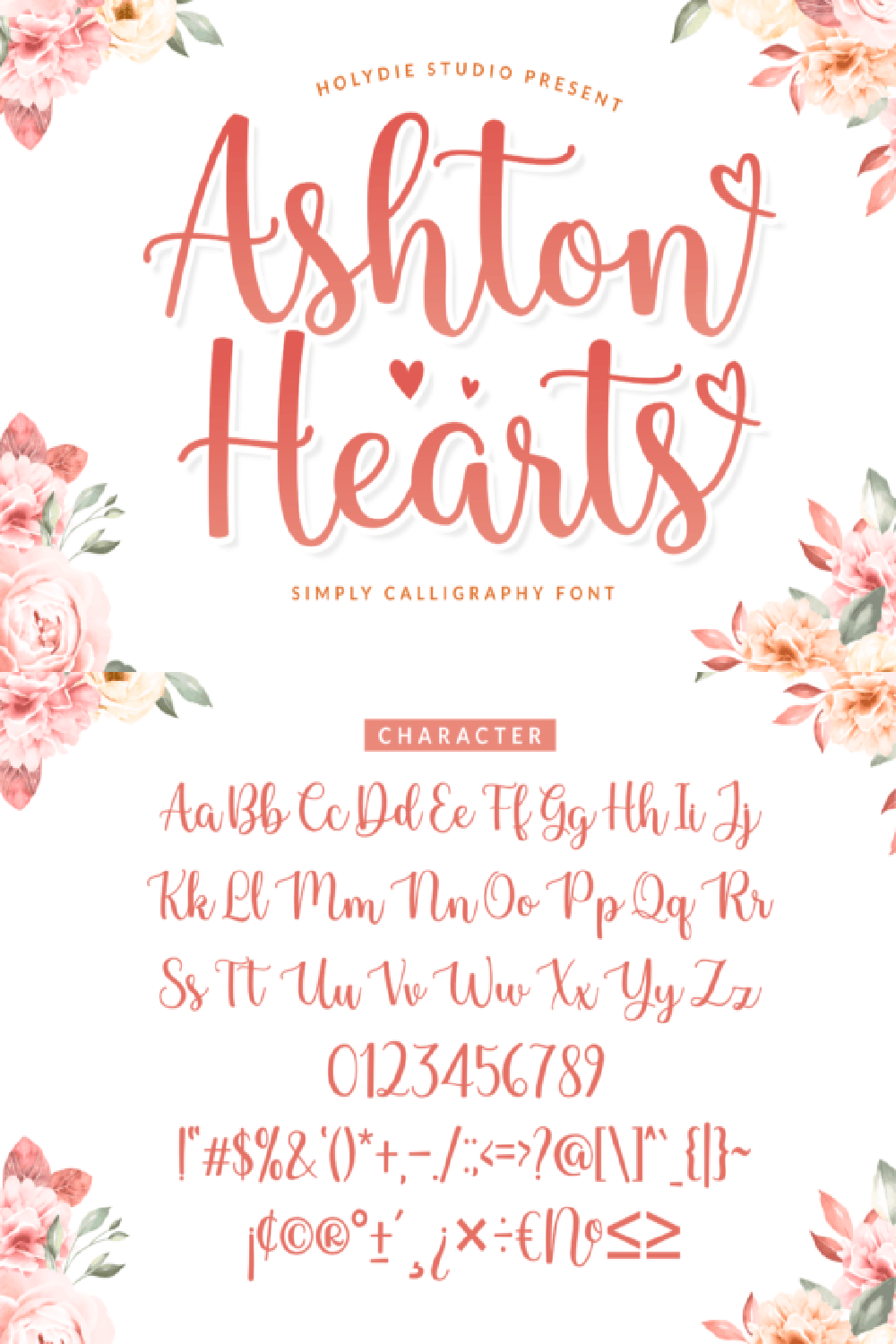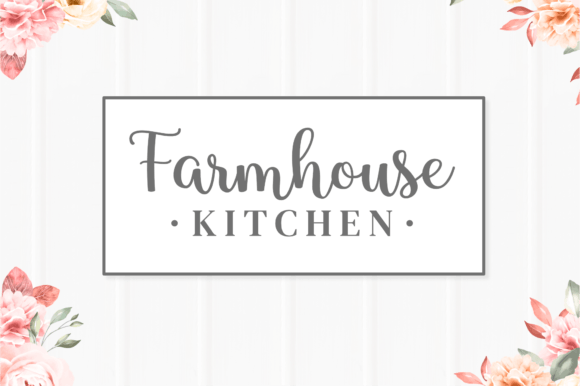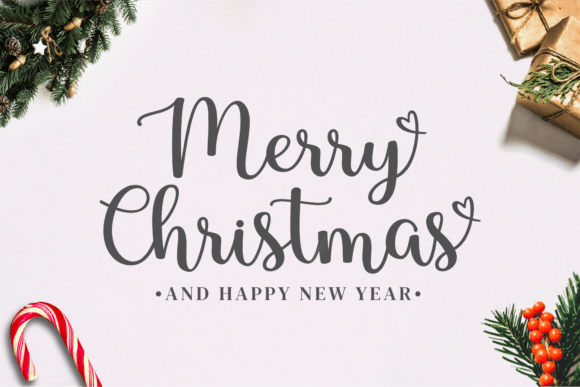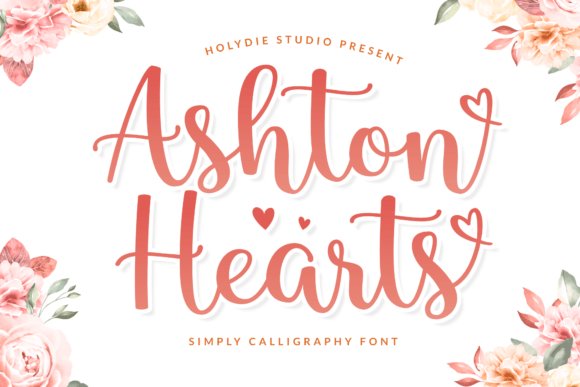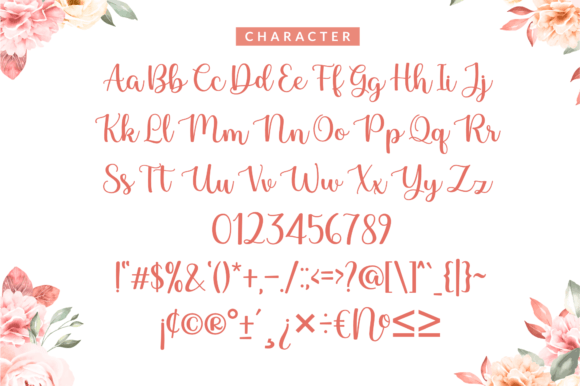
Ashton Hearts Font: Romantic Calligraphy for Wedding & DIY Designs!
About the Ashton Hearts Font
Elevate your designs with Ashton Hearts Font, a font that combines sophistication with readability. Ashton Hearts is a stylish, modern calligraphy font. This gentle font will look gorgeous on a variety of design ideas. It will add a joyful and romantic touch to each of your projects! Ashton Hearts is PUA encoded which means you can access all of the glyphs and swashes with ease!
Ashton Hearts excels in applications requiring a touch of romantic elegance, such as wedding invitations, greeting cards, or branding for businesses focused on beauty, fashion, or luxury goods. Its delicate swashes are ideal for short headlines, logos, and short text blocks, adding a sophisticated, yet approachable feel. However, its calligraphic nature makes it less suitable for body text or UI elements where readability is paramount.
For optimal visual harmony, pair Ashton Hearts with a clean sans-serif font like Montserrat or Lato for a contemporary feel, or a classic serif like Garamond or Playfair Display for a more traditional look. A simple geometric sans-serif could also create a striking contrast. Avoid pairing it with other script fonts, which could create visual clutter.
The overall personality of Ashton Hearts is soft, elegant, and romantic, conveying a sense of warmth and sophistication. Its gentle curves and delicate swashes make it perfect for projects aiming to evoke feelings of joy, love, and celebration.
Ashton Hearts Font Usage Examples
Ashton Hearts Font Example